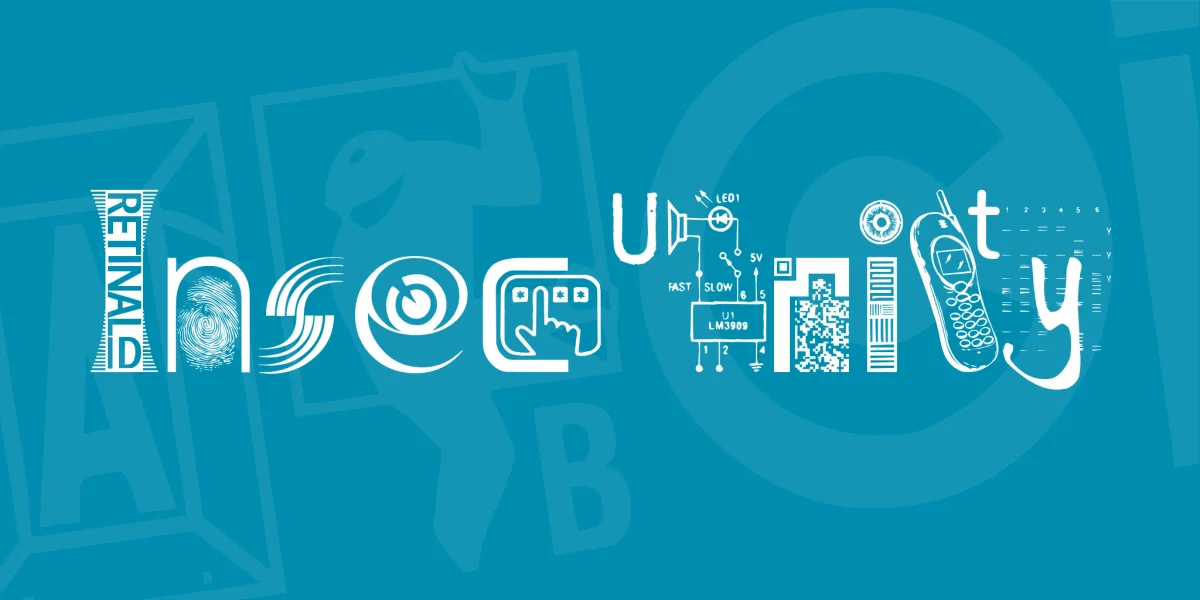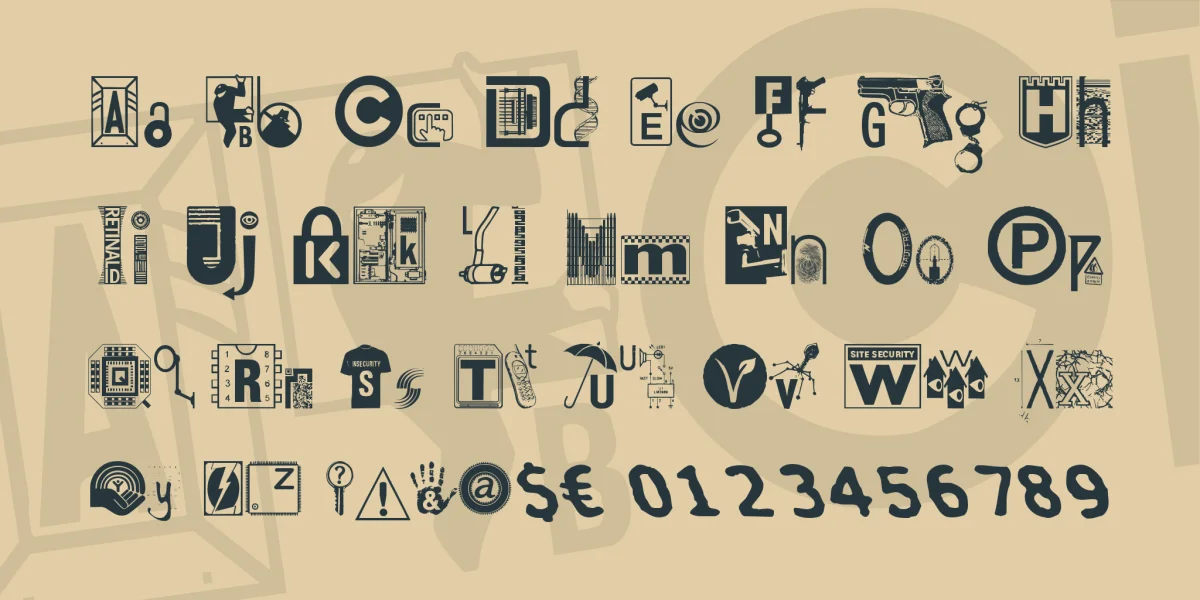
Insecurity is demi-dingbat, part readable, part pictorial.
It received a Commendation in the 2005 FUSE Typeface Competition.
Aiming to reflect the theme Security intuitively and eclectically, the font was compiled Pop Art fashion from Google image searches.